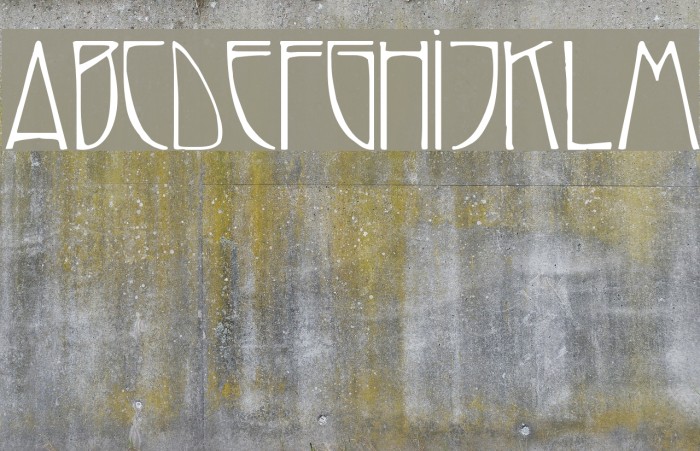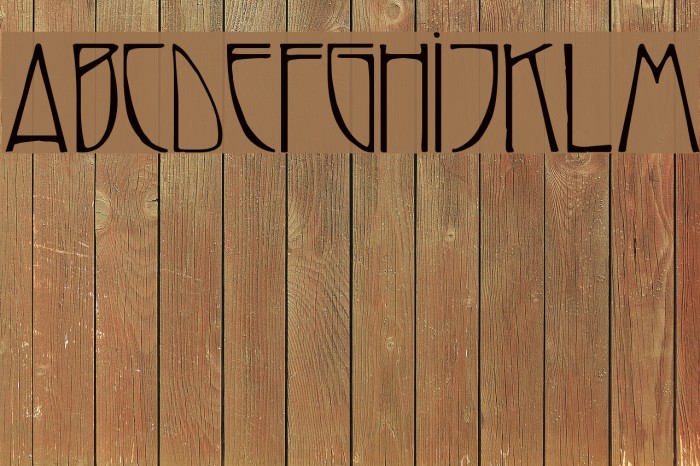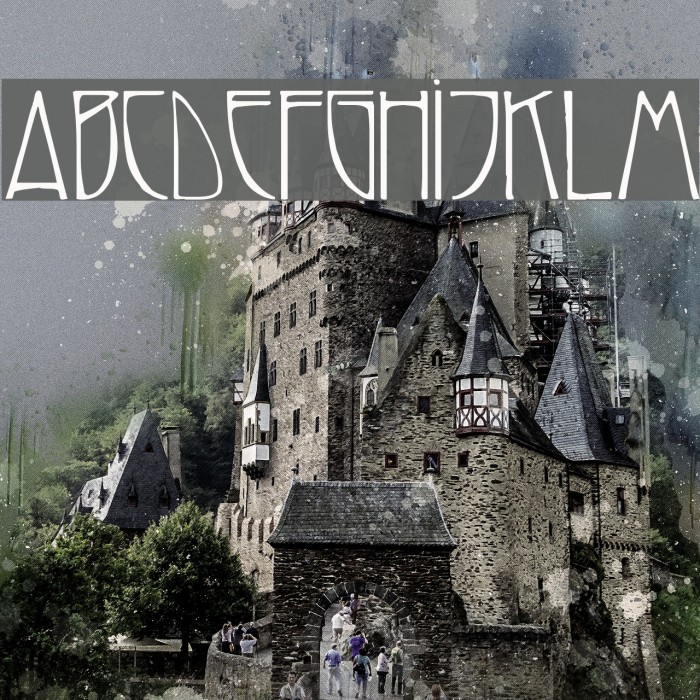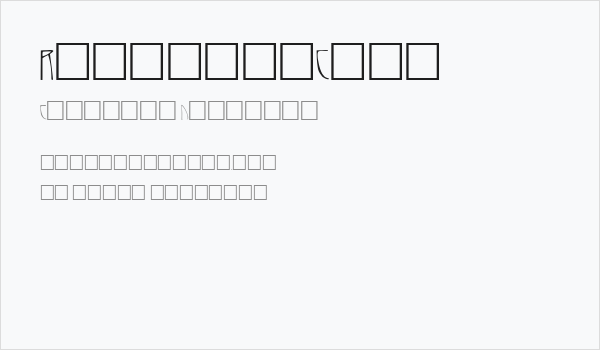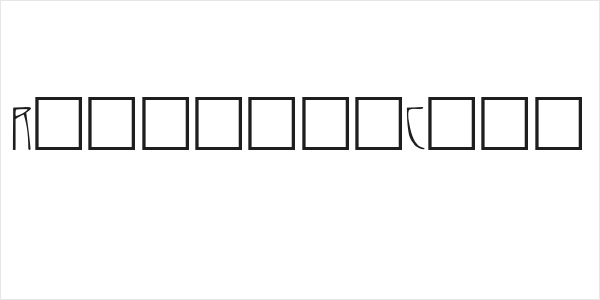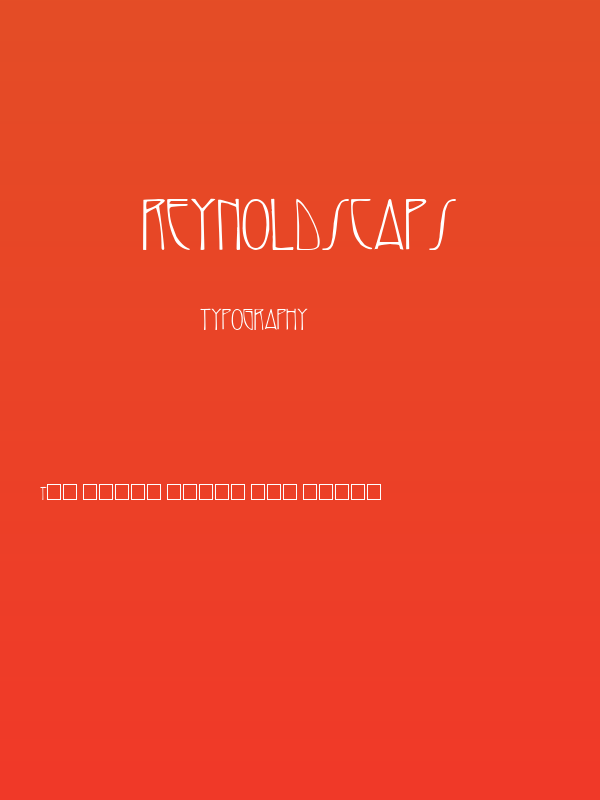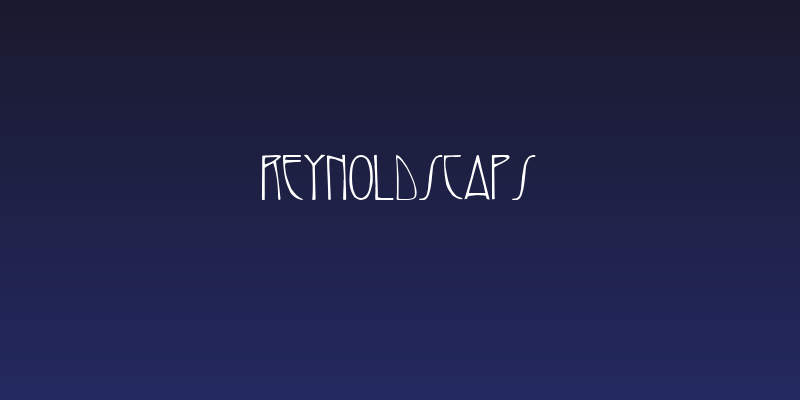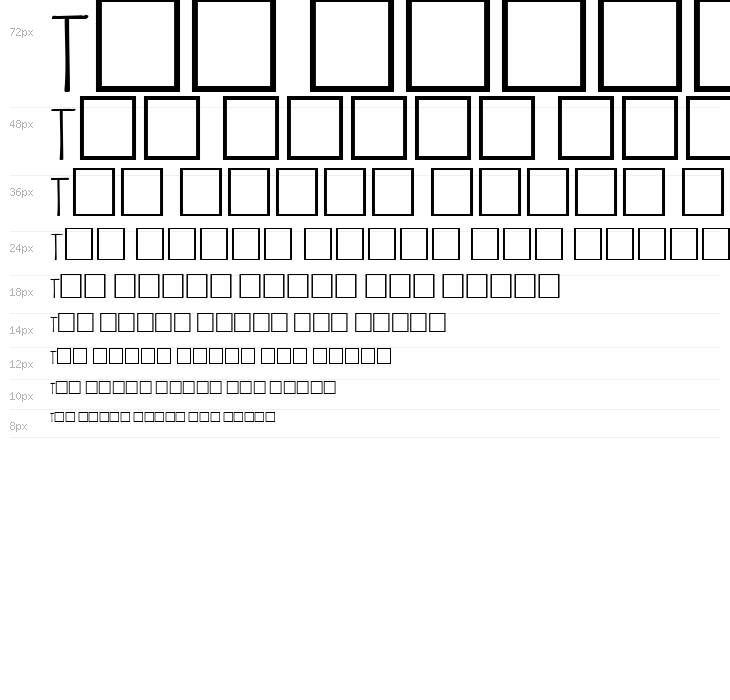
ReynoldsCaps Font
ReynoldsCaps Description
This font features a unique and artistic design with elongated and narrow letterforms. The uppercase letters exhibit a distinct style with varying stroke widths, creating an elegant and sophisticated appearance. The characters have a hand-drawn quality, giving them a personalized and creative look. The font's overall aesthetic is both modern and artistic, making it suitable for projects that require a touch of elegance and individuality. The spacing between characters is consistent, ensuring readability while maintaining its artistic flair.
| Proposed Projects | Ideal for creative projects such as logo design, branding, invitations, and artistic posters. |